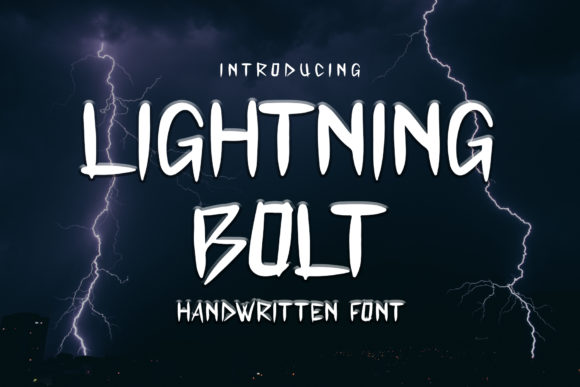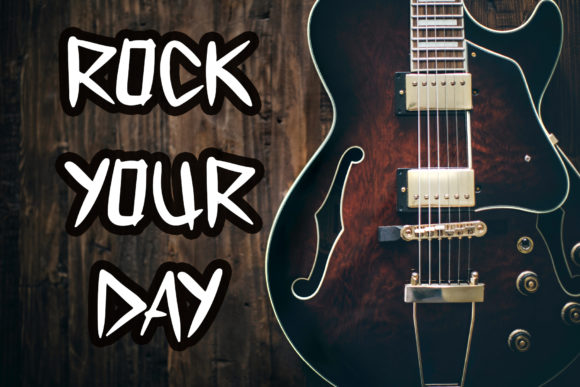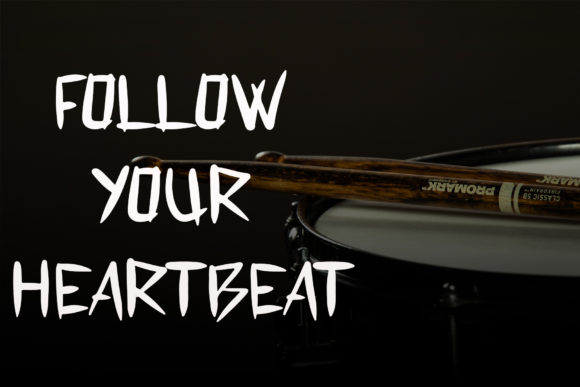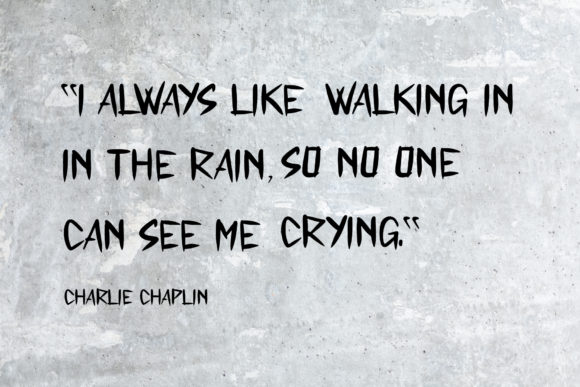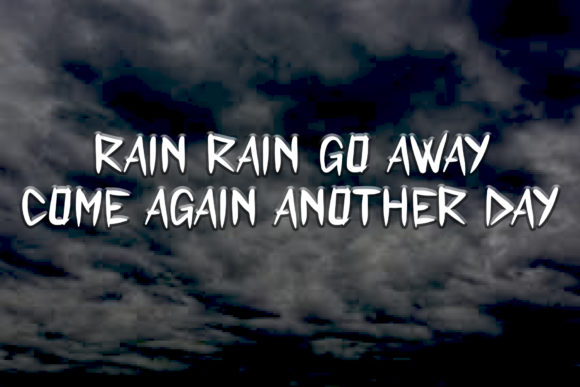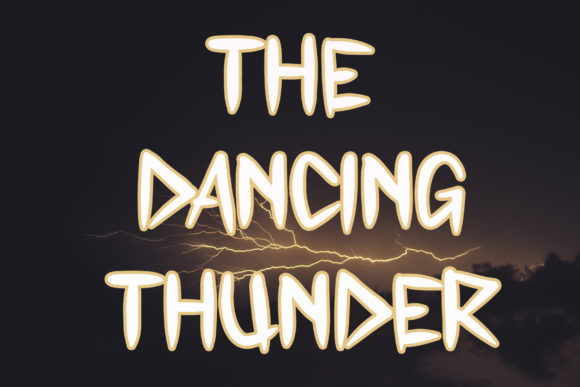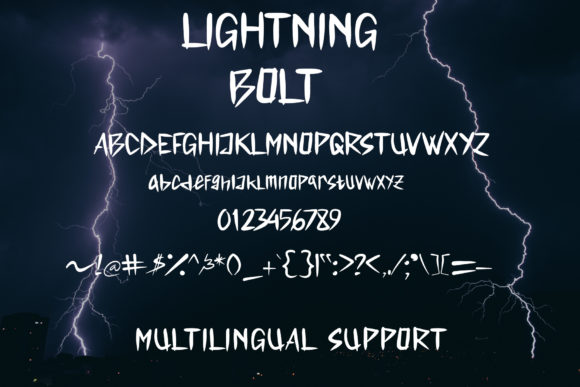
Lightning Bolt Font
About Lightning Bolt Font
Lightning Bold is a unique and interesting handwritten font. A little bit quirky, this font looks incredibly adept on a wide variety of contexts!